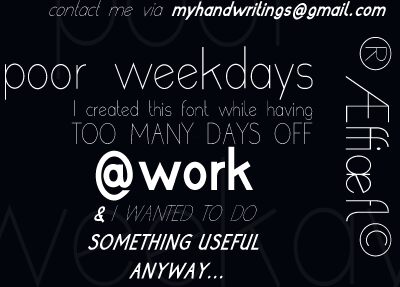
Poor Weekdays Bold by Roland Huse is a free condensed sans serif with towering proportions, sharply varied stroke widths, and a forceful silhouette. The capitals feel architectural, combining very slim verticals with broad wedges, deep curves, and sweeping rounded forms. Lowercase letters are more compact and soft, but retain the same emphatic vertical pull across the line.
Independent fashion labels and contemporary arts venues can use its stretched silhouette, giving posters, event programs, packaging, and merchandise an unmistakably stark urban edge. It is particularly suited to young, design-conscious audiences drawn to experimental typography, especially in independent music and cultural branding.